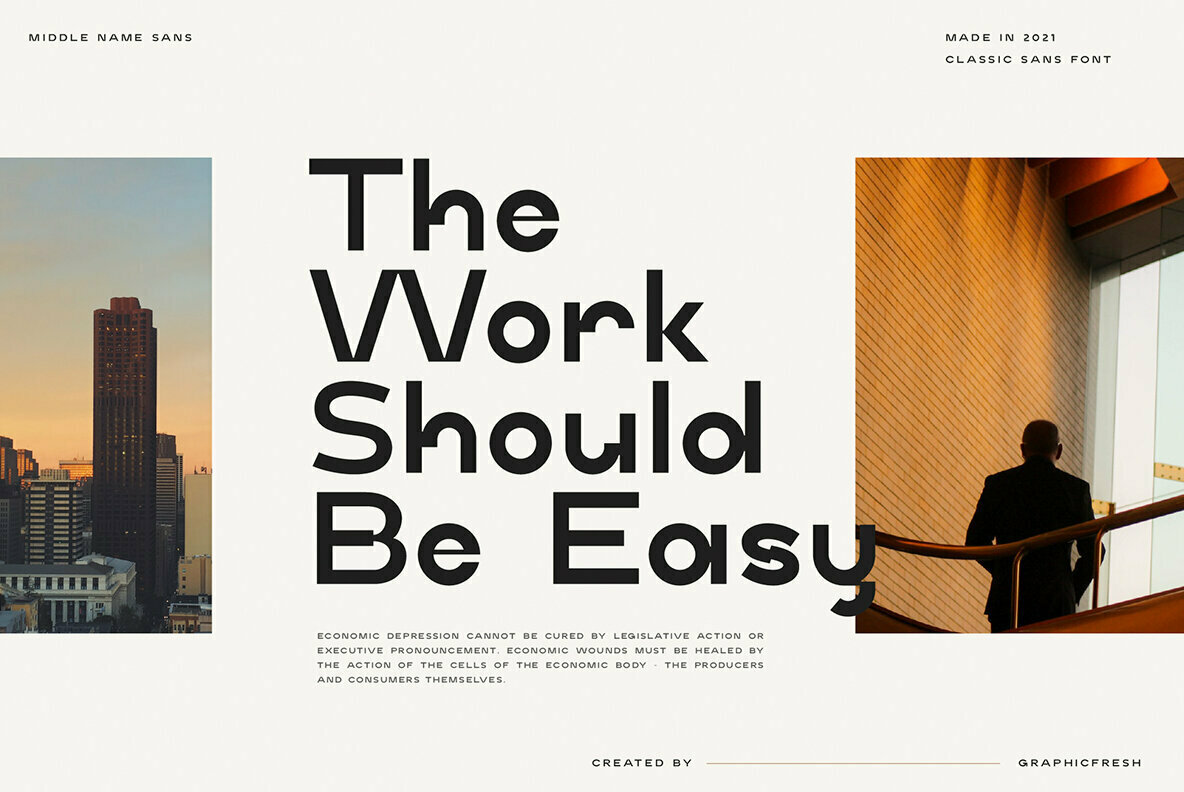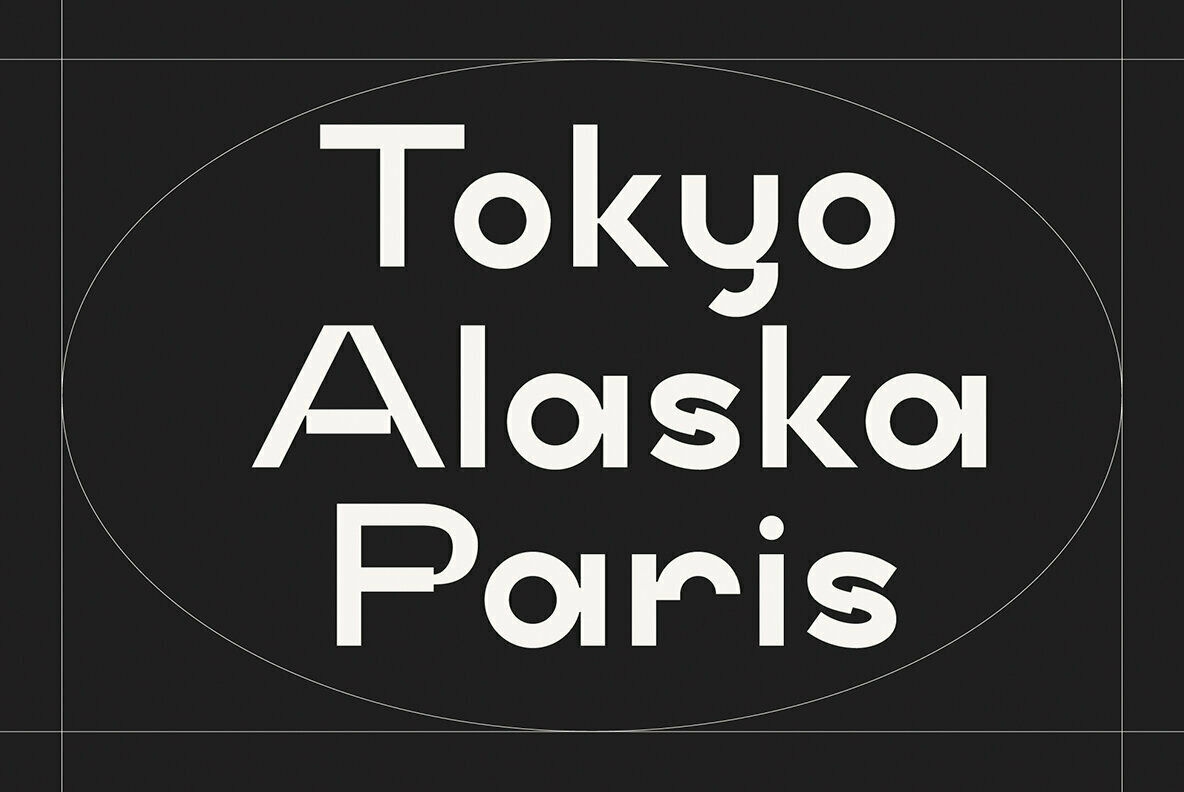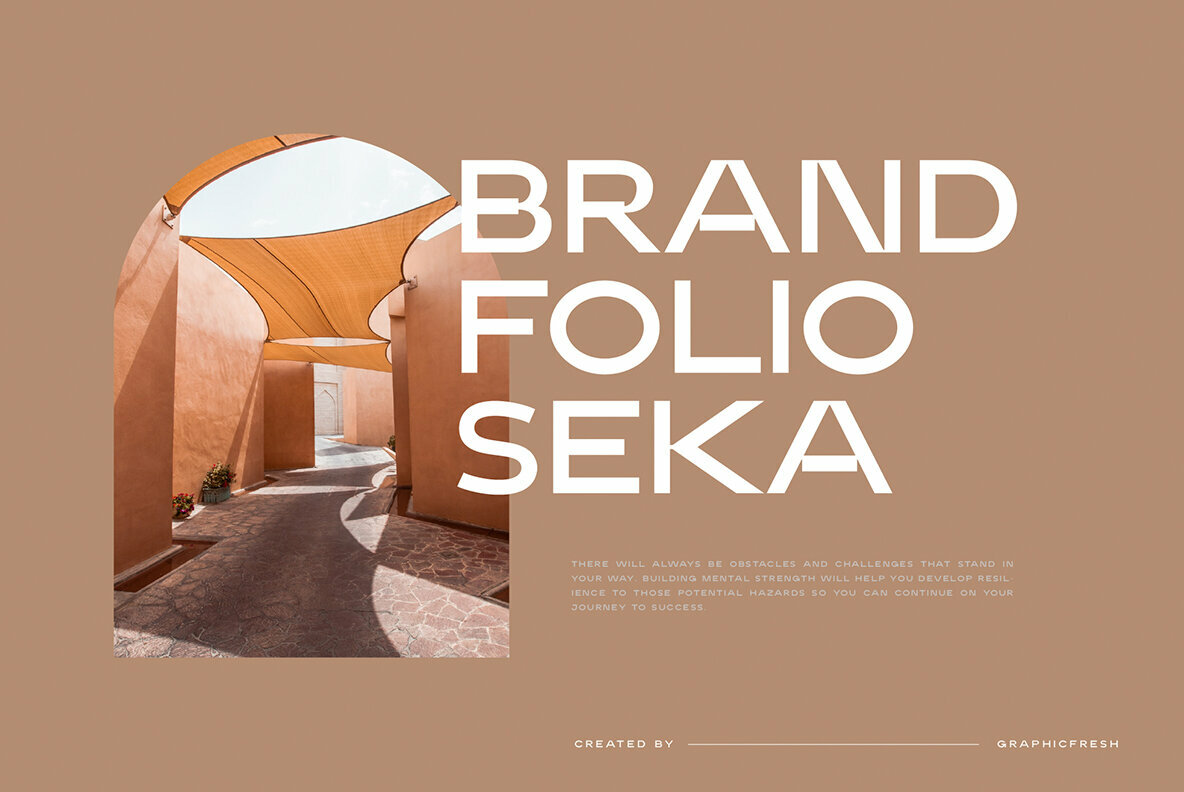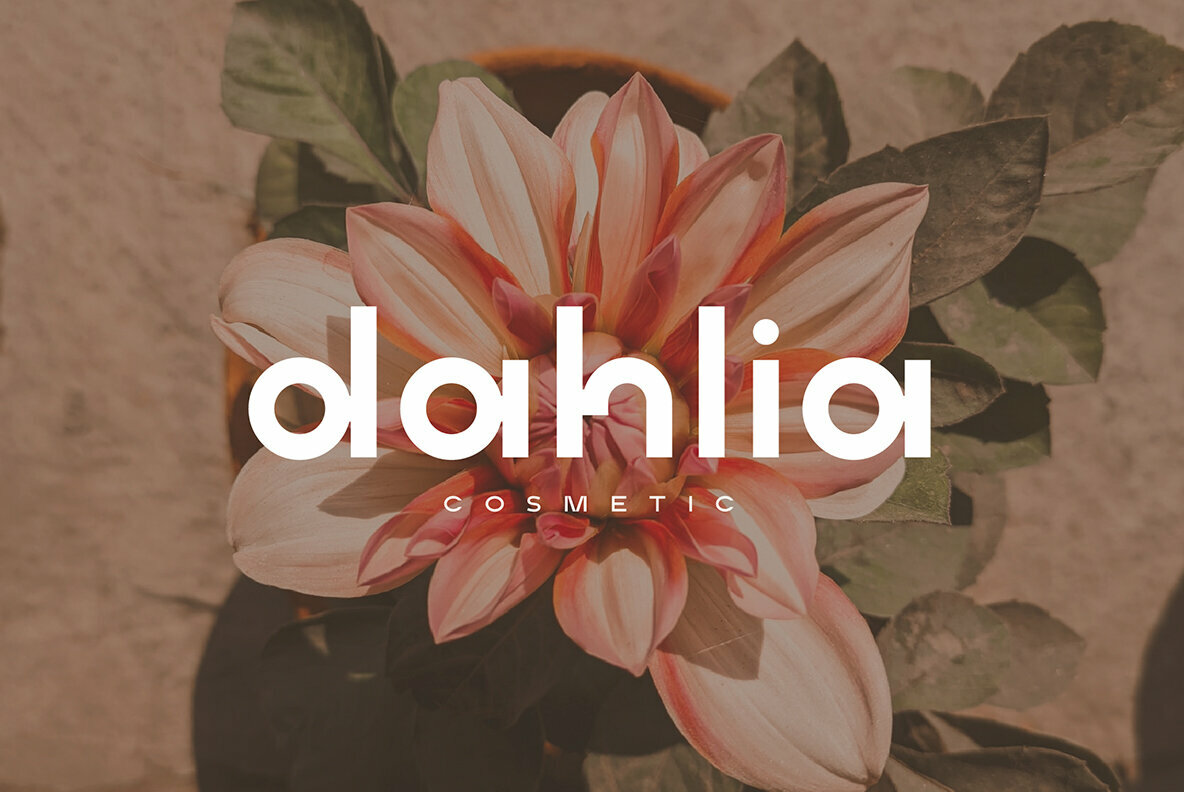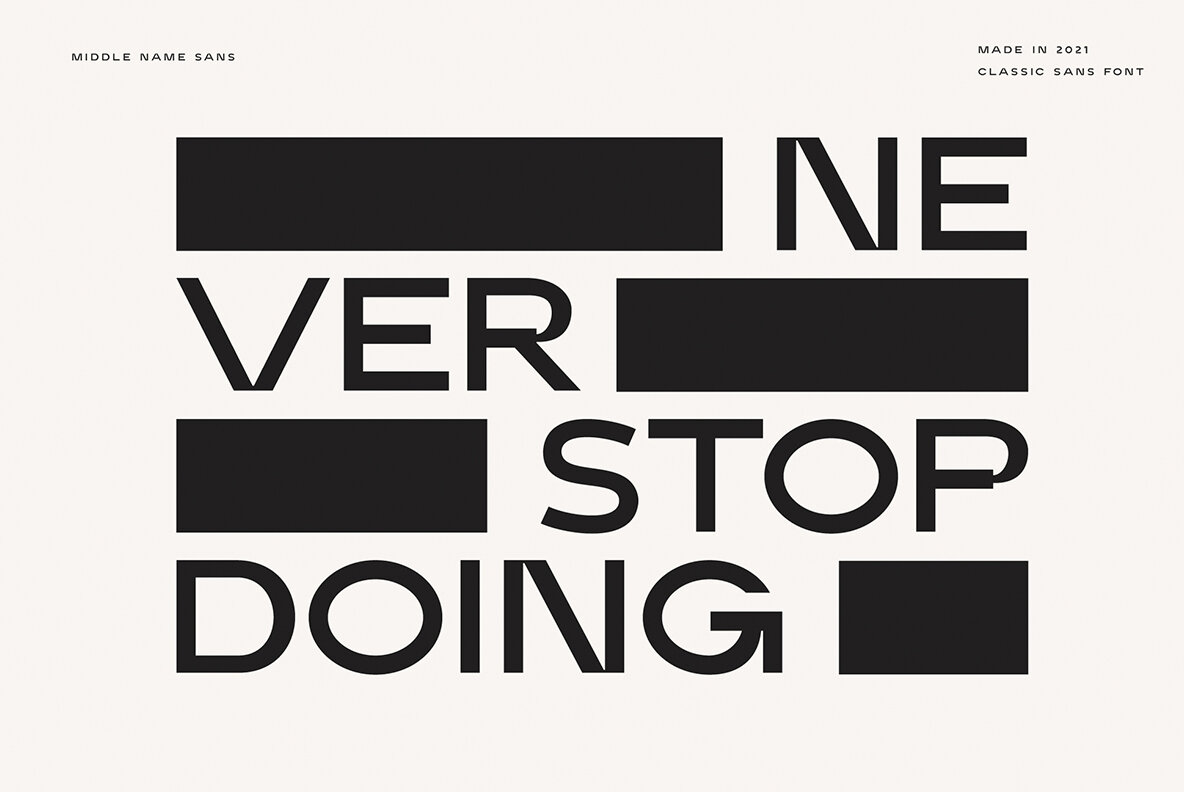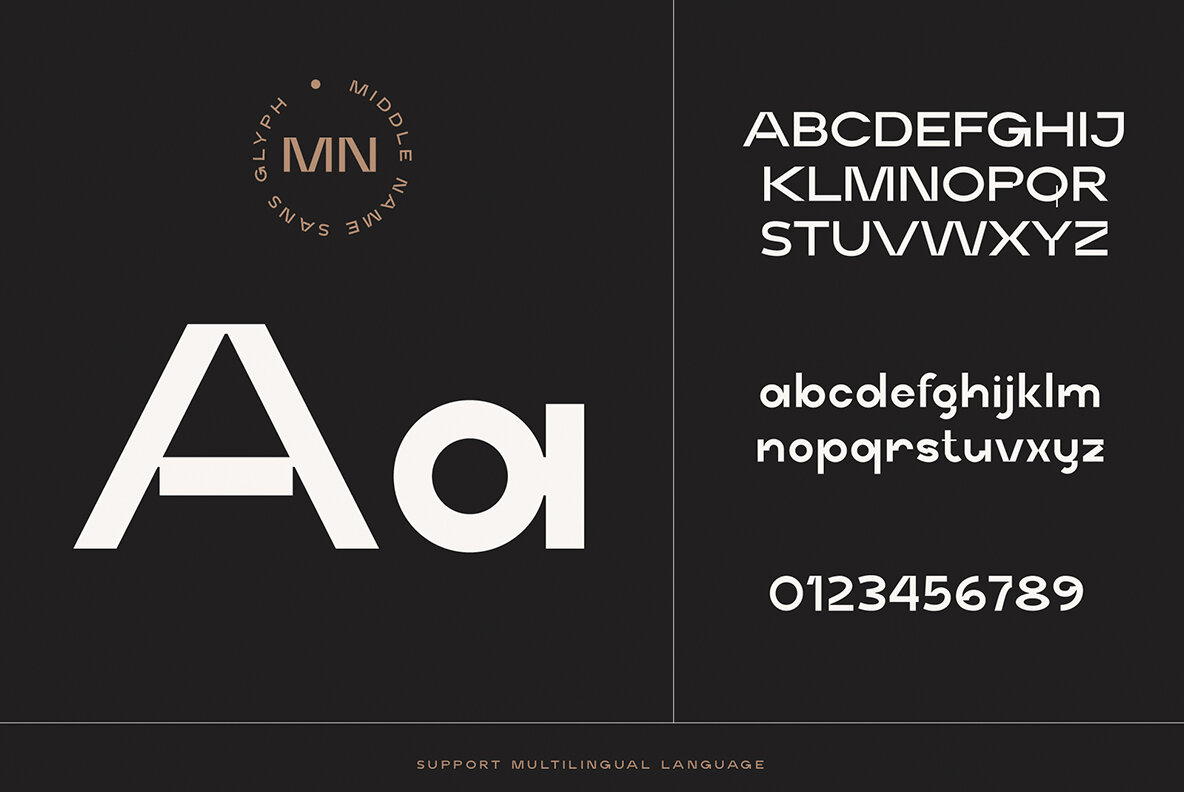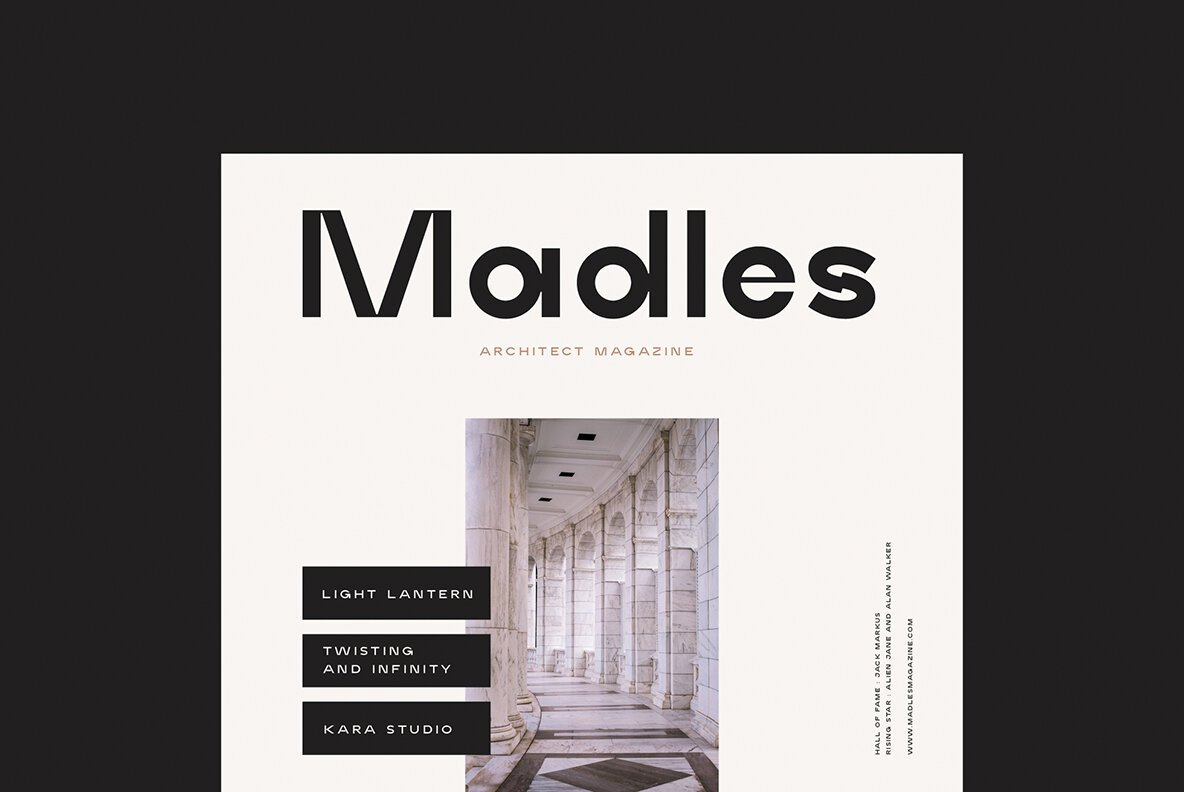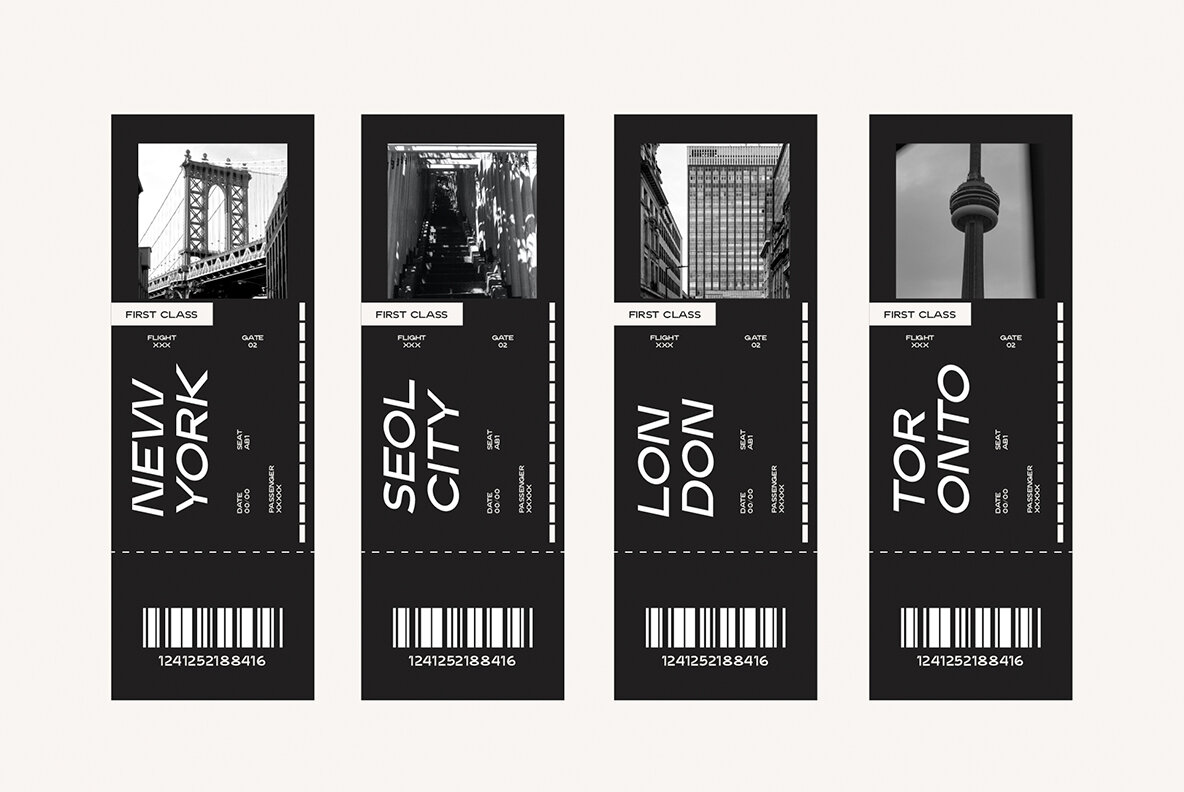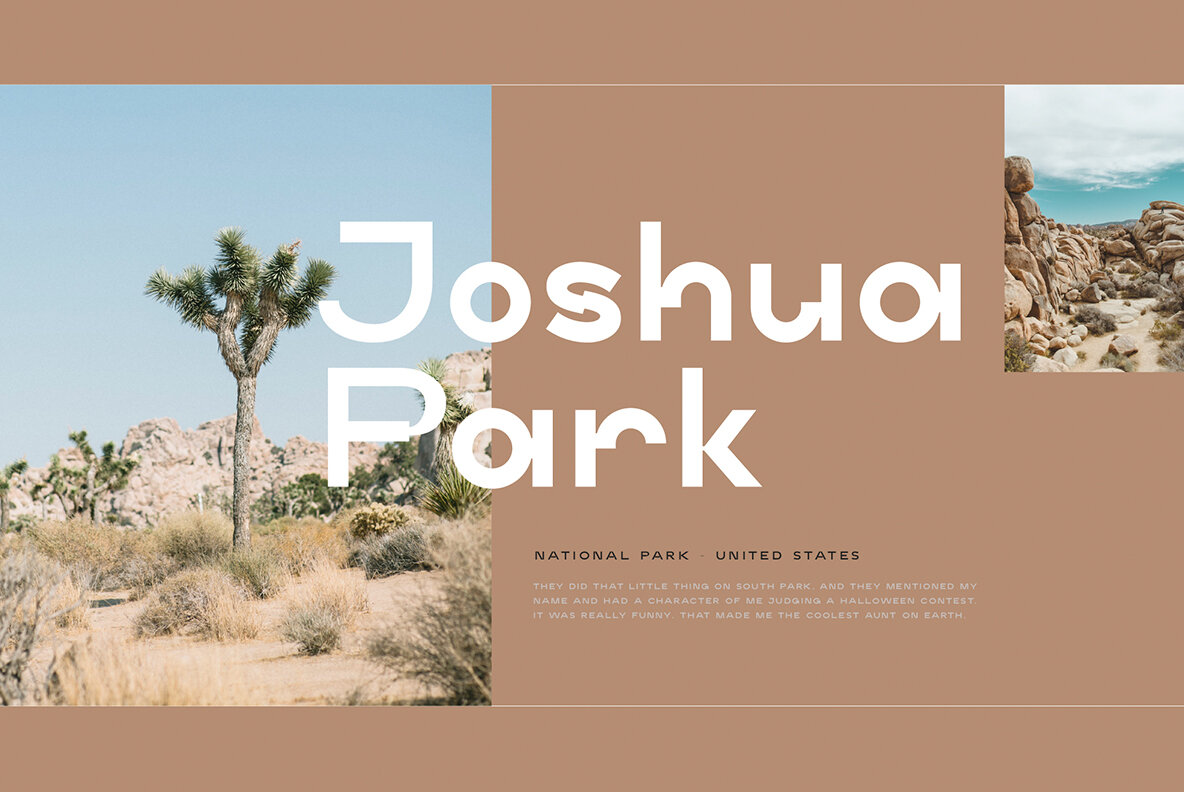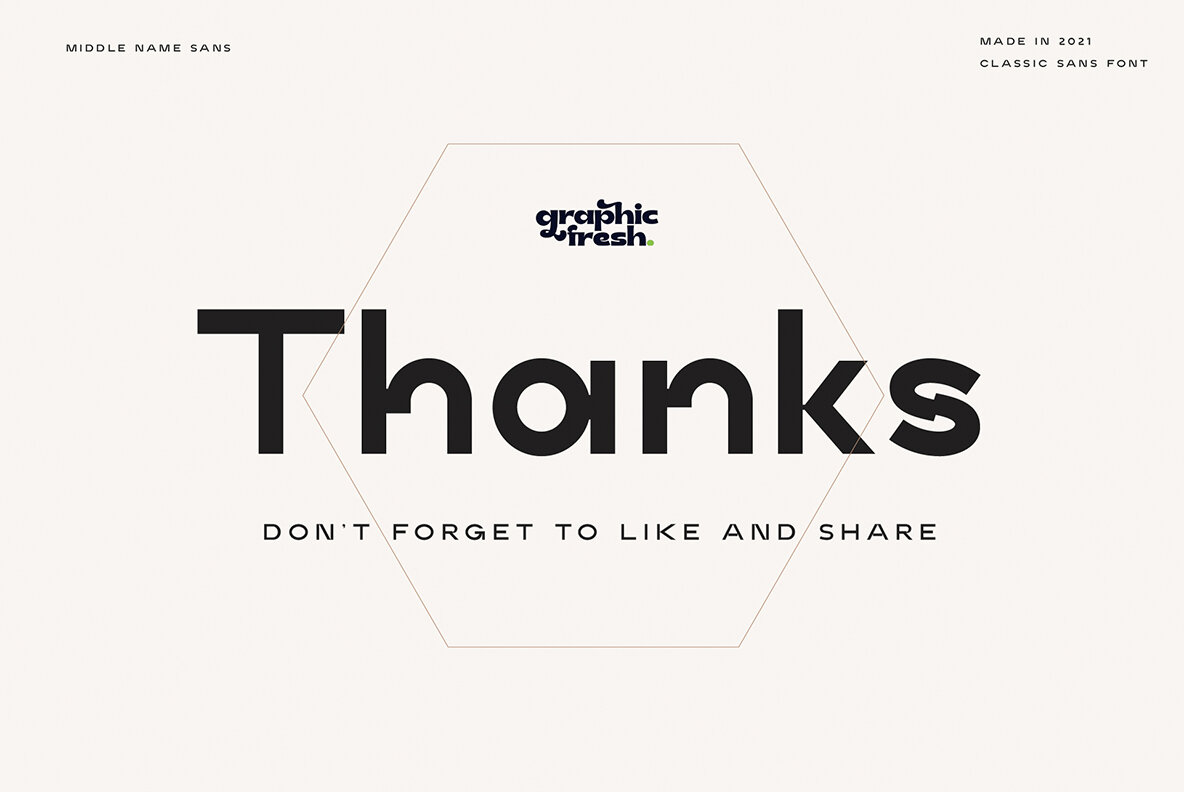
Middle Name Font
Middle Name Sans is a geometric styled font. However, the design strays from the natural limitations of many sans-type fonts. Its eccentric style with a mix of today's styles makes this font suitable for various purposes. We added a bit of a classic touch to it. So that users can reminisce with the style of the past. You can create various designs with this font. Such as logos, posters, design templates, magazines, flyers and others. The strong character of the letters makes your design feel more modern and minimalist.